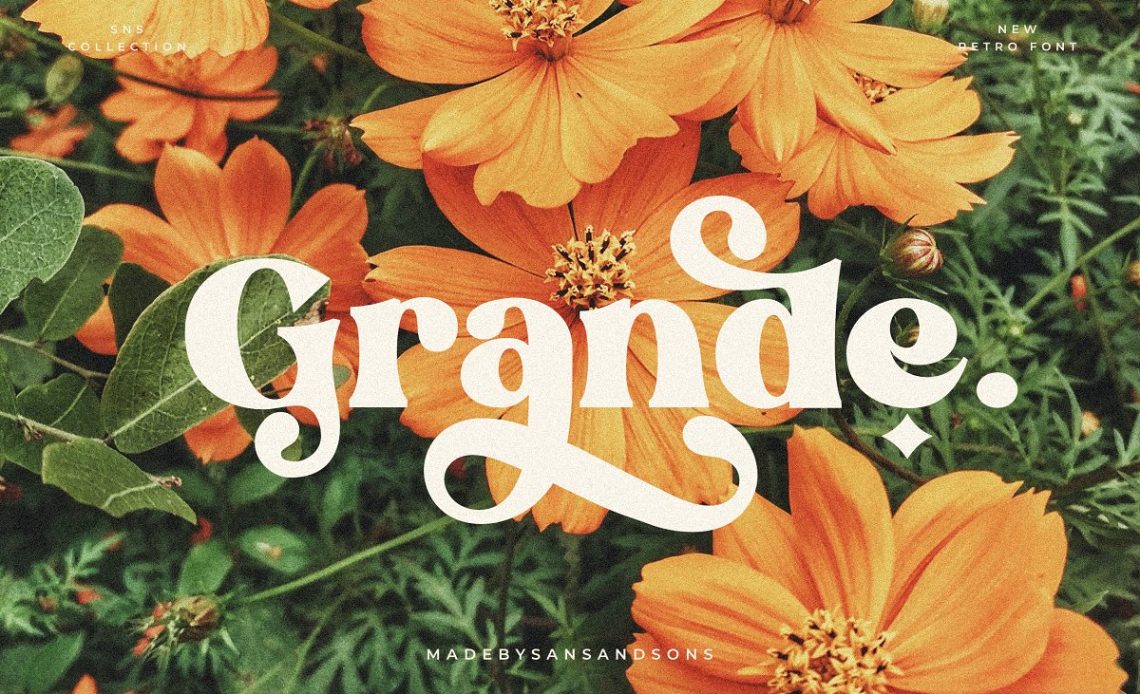
Looking for the perfect font for your modern CV? Look no further than Grande - Modern Retro Font! Created by the talented Angga Suwista, this serif font family is packed with features that will make your resume stand out from the crowd.
One of the key features of Grande is its multilanguage support, which means you can use it for CVs in any language. And with its stylish alternates and ligatures, you can easily create a custom look that reflects your unique personality and skills.
But Grande isn't just for CVs. Its fun and elegant style makes it perfect for branding, logos, invitations, mastheads, and more. Whether you're a graphic designer, a freelancer, or a business owner, Grande is sure to help you make a bold statement and stand out from the competition.